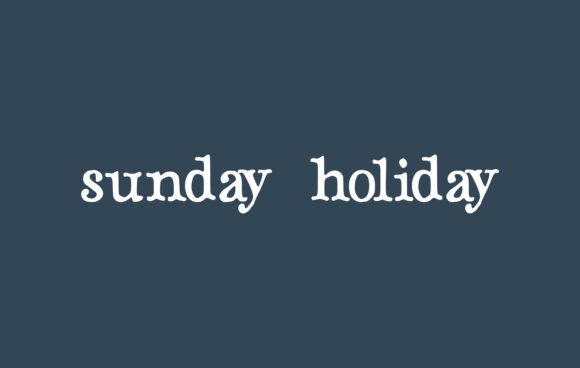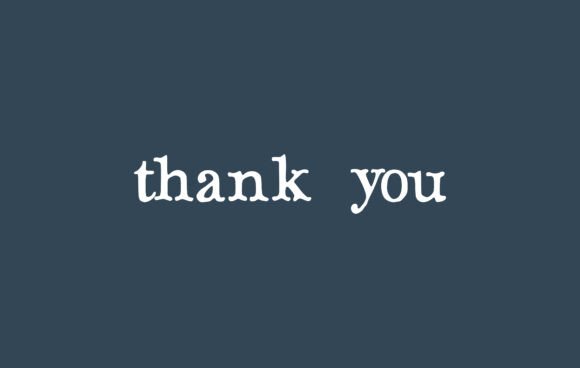
Introducing CreataLuxe Font: Elevate Your Designs with a Touch of Romance
In the world of typography, a font can make all the difference in bringing your creative vision to life. If you’re a designer, crafter, or simply someone who appreciates the art of beautiful lettering, you’re in for a treat. Say hello to CreataLuxe, an authentic font that exudes a romantic touch, designed to capture your heart and take your designs to new heights.
The Perfect Blend of Elegance and Legibility
CreataLuxe is more than just a font – it’s an experience. With its expertly crafted design, this font strikes the perfect balance between elegance and legibility, making it an ideal choice for a wide range of applications. Whether you’re looking to create stunning magazine headlines, eye-catching social media graphics, or beautiful wedding invitations, CreataLuxe is the perfect companion to help you bring your ideas to life.
What Makes CreataLuxe Stand Out?
- Romantic Touch: CreataLuxe boasts a unique romantic flair that adds a touch of sophistication to any design. Its elegant curves and lines evoke a sense of luxury and refinement, perfect for designs that require a high-end feel.
- Legibility: Despite its ornate appearance, CreataLuxe remains highly legible, making it suitable for both title and body text. This versatility ensures that you can use it across various design projects without compromising on readability.
- Endless Design Possibilities: From branding and advertising to crafting and personal projects, CreataLuxe offers endless possibilities for creative expression. Its flexibility and charm make it an excellent addition to any designer’s toolkit.
Design Applications for CreataLuxe
The versatility of CreataLuxe makes it an excellent choice for a variety of design applications. Here are a few ideas to get you started:
- Magazine Headlines: Create attention-grabbing headlines that set the tone for your publication.
- Social Media Graphics: Elevate your social media presence with stunning graphics that showcase your brand’s personality.
- Branding: Establish a strong brand identity with CreataLuxe’s elegant and sophisticated feel.
- Wedding Invitations: Add a touch of romance and luxury to your wedding invitations and stationery.
- Cards and Greeting: Create beautiful cards and greetings that leave a lasting impression.
Why Choose CreataLuxe?
In a world where fonts are a dime a dozen, CreataLuxe stands out for its unique blend of romance, elegance, and legibility. By choosing CreataLuxe, you’re not just selecting a font – you’re investing in a design asset that can elevate your creative projects and help you establish a strong visual identity.
CreataLuxe is more than just a font – it’s a design experience that can transform your creative vision into reality. With its romantic touch, elegant design, and versatility, this font is sure to become a favorite among designers, crafters, and anyone who appreciates the art of beautiful typography. Whether you’re looking to create stunning designs for personal or professional projects, CreataLuxe is the perfect choice. So why wait? Discover the power of CreataLuxe and take your designs to new heights.